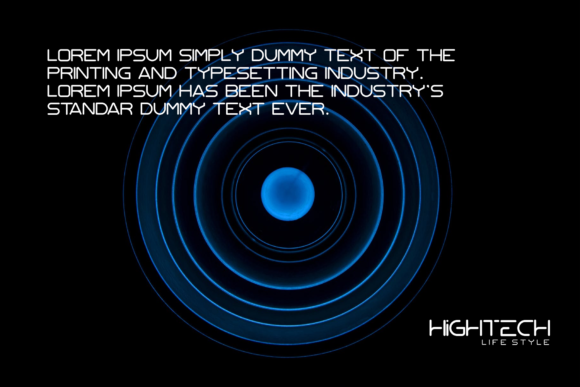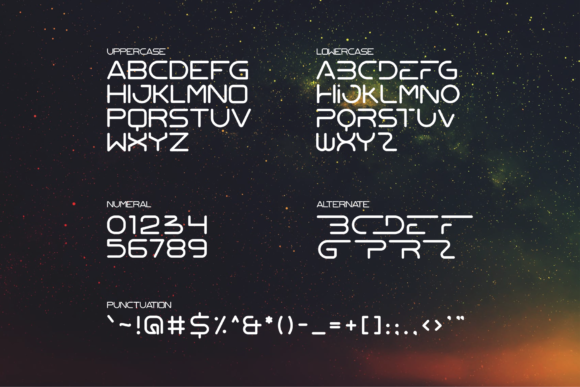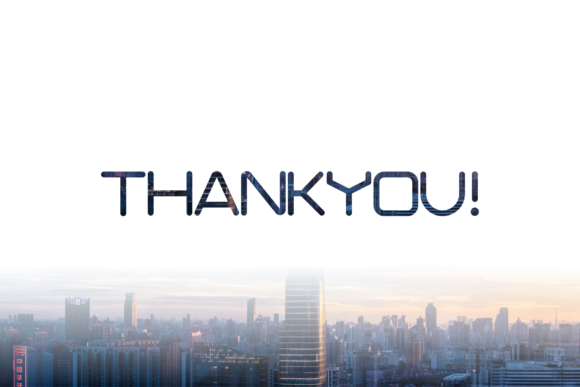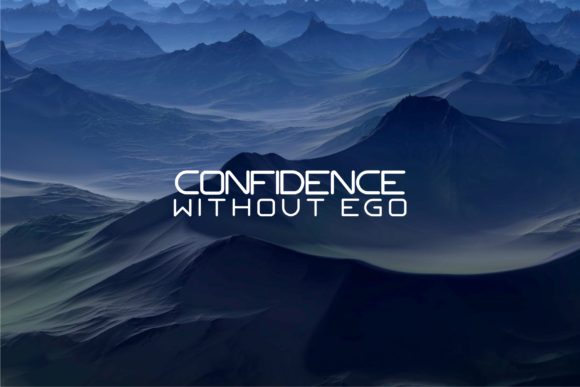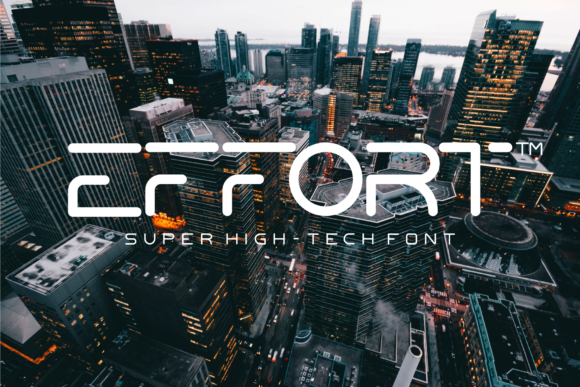
Introducing Effort Font: The Ultimate Sans-Serif Uppercase Font for Tech-Related Designs
In the world of typography, fonts play a crucial role in conveying the tone and personality of a design. For designers and crafters looking for a font that’s perfect for technology-related projects, look no further than Effort Font. This sans-serif uppercase font is specifically designed to add a touch of modernity and sophistication to your designs.
What is Effort Font?
Effort Font is a sans-serif uppercase font that’s designed to be clean, crisp, and highly legible. Its sleek lines and geometric shapes make it perfect for use in a variety of design applications, from digital interfaces to print materials. The font’s uppercase letters are carefully crafted to provide a strong, confident look that’s sure to grab attention.
Key Features of Effort Font
- Sans-Serif Design: Effort Font features a sans-serif design, which gives it a clean and modern look that’s perfect for technology-related designs.
- Uppercase Letters: The font features uppercase letters only, which provides a strong and confident look that’s ideal for headlines and titles.
- High Legibility: Effort Font is designed to be highly legible, even at small sizes, making it perfect for use in digital interfaces and other applications where readability is crucial.
- Geometric Shapes: The font’s geometric shapes give it a futuristic look that’s perfect for technology-related designs.
Use Cases for Effort Font
Effort Font is a versatile font that can be used in a variety of design applications, including:
- Digital Interfaces: Use Effort Font to add a touch of modernity to your digital interfaces, such as mobile apps, websites, and software.
- Print Materials: The font is also perfect for use in print materials, such as brochures, flyers, and business cards.
- Headlines and Titles: Use Effort Font to create bold, eye-catching headlines and titles that grab attention.
- Branding and Identity: The font can also be used to create a strong brand identity for technology-related companies.
Why Choose Effort Font?
There are many fonts available that are similar to Effort Font, but here are a few reasons why you might want to choose this font for your next project:
- Unique Design: Effort Font has a unique design that’s specifically tailored to technology-related designs.
- High Quality: The font is designed to be high-quality and highly legible, making it perfect for use in a variety of design applications.
- Easy to Use: Effort Font is easy to use and can be easily integrated into your design workflow.
In conclusion, Effort Font is a sans-serif uppercase font that’s perfect for technology-related designs. Its clean lines, geometric shapes, and high legibility make it a versatile font that can be used in a variety of design applications. Whether you’re a designer or crafter looking for a font that will add a touch of modernity to your designs, Effort Font is a great choice.